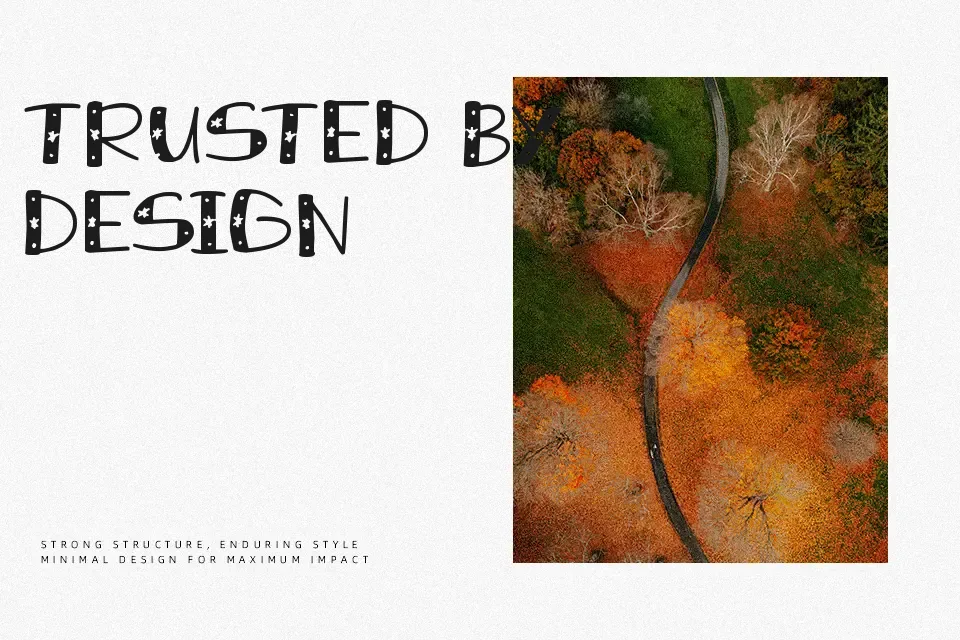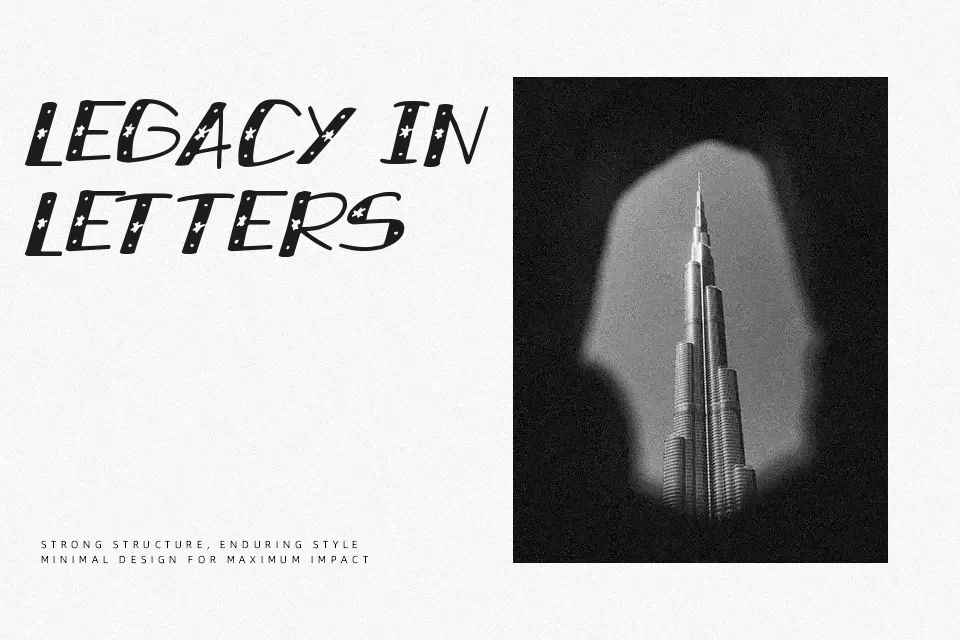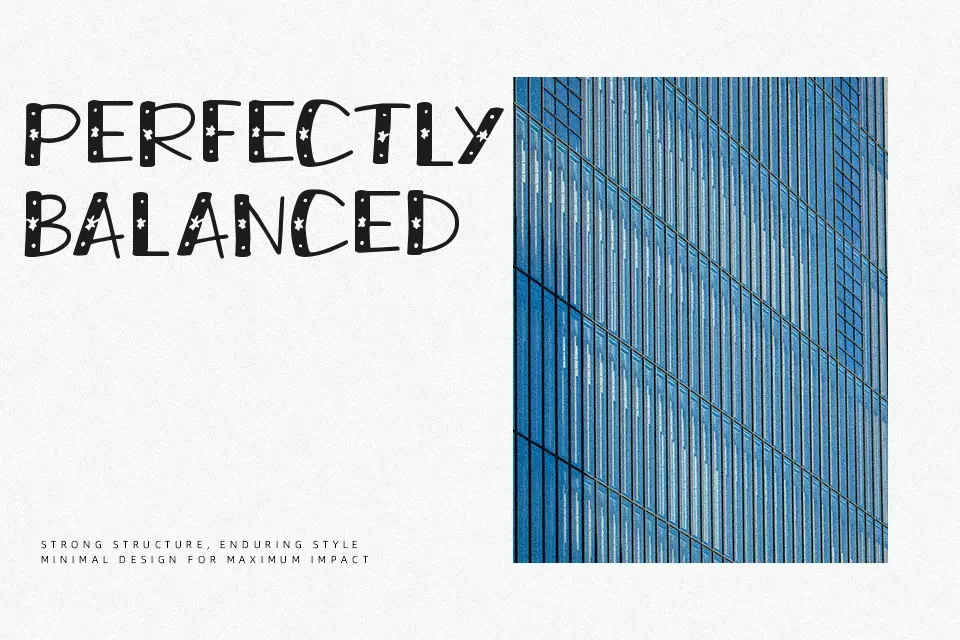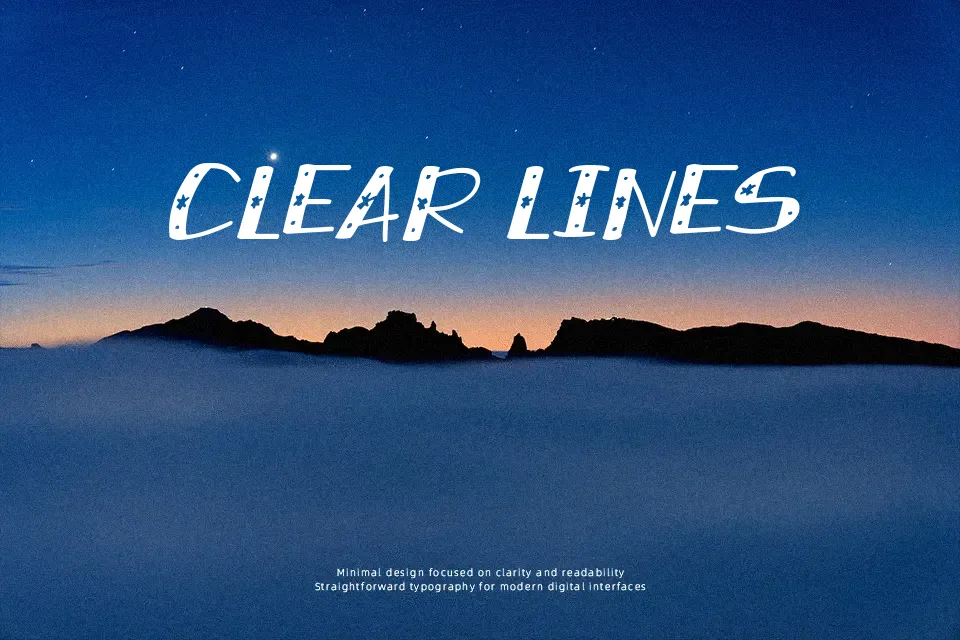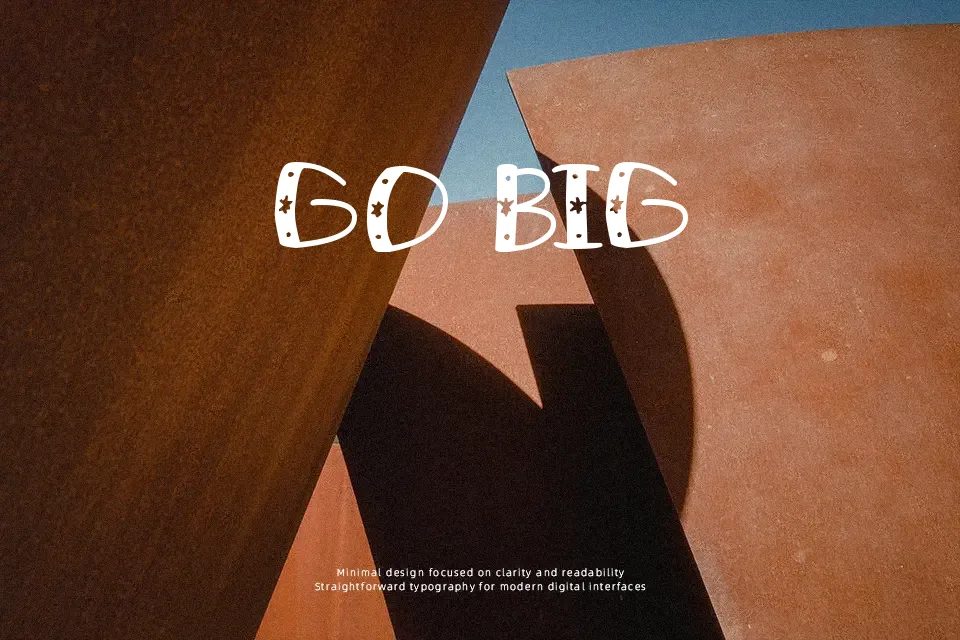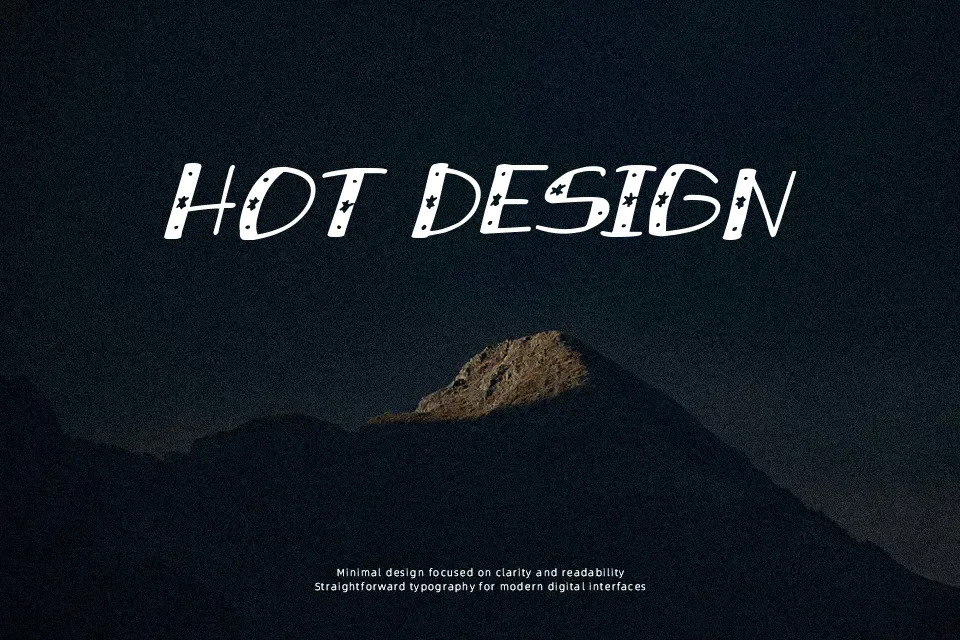
Snowy Sparkles Font
Snowy Sparkles Font uses slim, upright display letterforms paired with visible snowflake-style decorative details. The strokes appear mostly even, while the narrow proportions and restrained spacing keep short words from feeling overly crowded. Uppercase characters carry the strongest seasonal effect, making the typeface more useful for headings than for extended copy. It works well where a winter theme needs to be clear at first glance, such as a greeting card title or festive event sign. The decorative elements become harder to appreciate at smaller sizes, so larger display settings are the practical choice.
Best For: Christmas card titles,winter event posters,holiday gift packaging,seasonal social media graphics
Perfect for christmas, headline, and packaging, with a cold and decorative style.